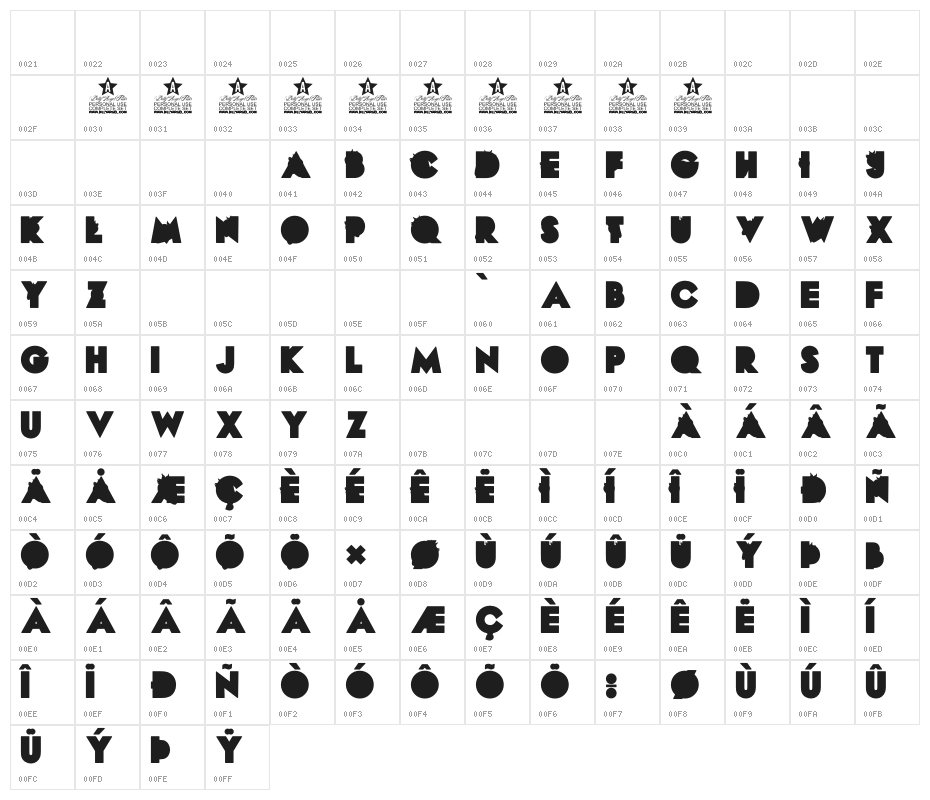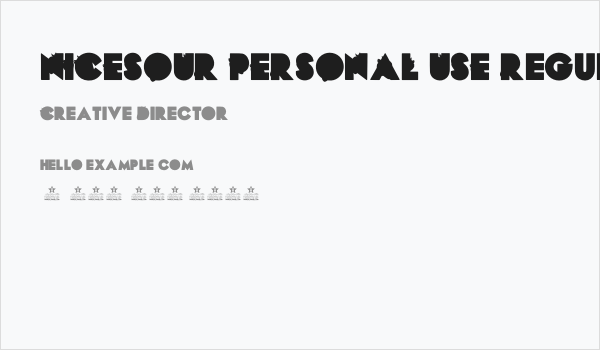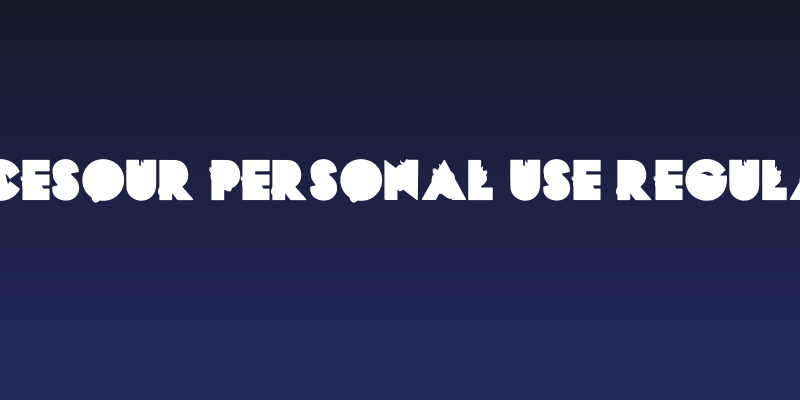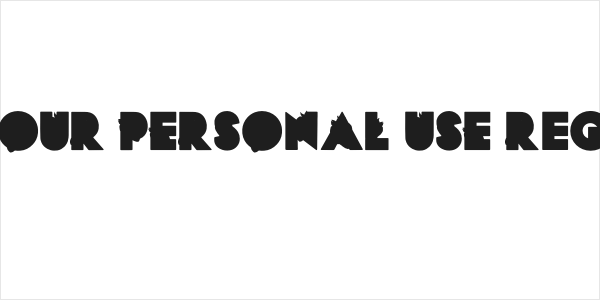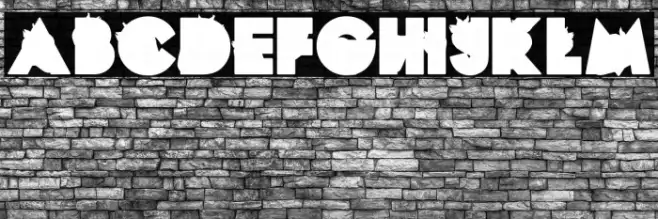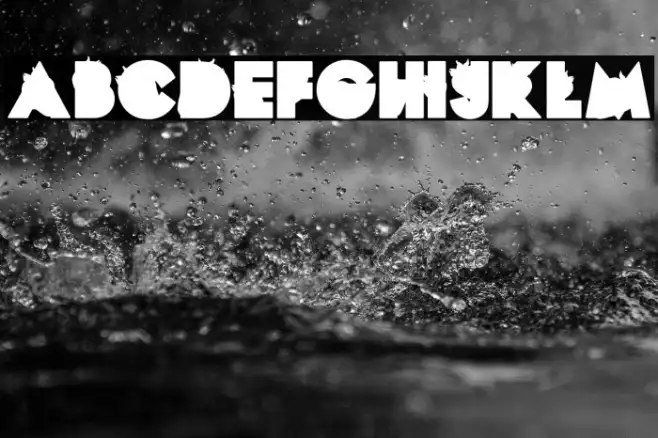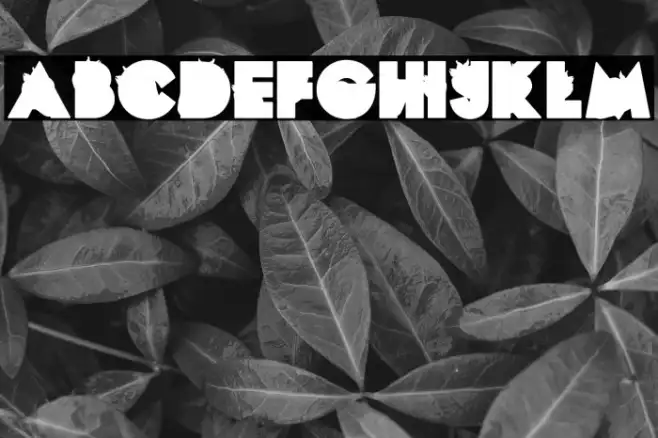
NICESOUR PERSONAL USE-Regular Font
NICESOUR PERSONAL USE-Regular Description
This font features a bold and striking design with a decorative flair. The uppercase letters are characterized by sharp, angular edges and unique cut-out patterns that give them a distinctive, edgy appearance. The font is highly stylized, making it ideal for attention-grabbing headlines or artistic projects. The boldness of the letters ensures high visibility, while the decorative elements add a touch of creativity and uniqueness. This font is best suited for projects that require a strong visual impact, such as posters, logos, or branding materials.
| Proposed Projects | Ideal for posters, logos, branding materials, and any project needing a strong visual impact. |